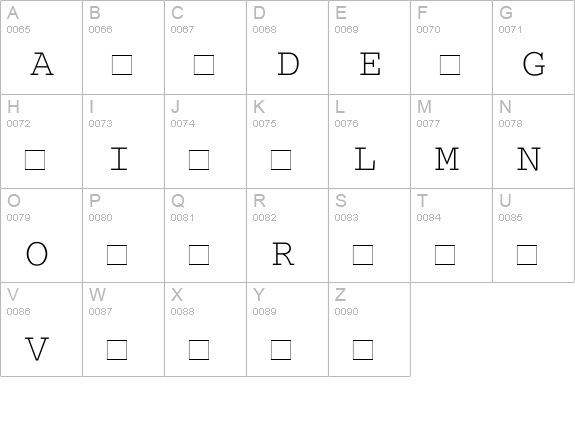
CopyNova Font Details
Introducing CopyNova font, a versatile and modern typeface that is sure to make your designs stand out. With its sleek lines and contemporary aesthetic, CopyNova is perfect for a wide range of projects, from branding to editorial design. What sets CopyNova apart is its unique blend of sophistication and approachability, making it suitable for both professional and creative applications. The clean, crisp letterforms ensure excellent readability at any size, while the subtle design details add a touch of elegance to your work. Best of all, CopyNova is completely free to download at FontsMarket.com. This means you can start using this high-quality font in your projects right away, without having to worry about any additional costs. Don't miss out on this fantastic opportunity to enhance your designs with the stylish and versatile CopyNova font.